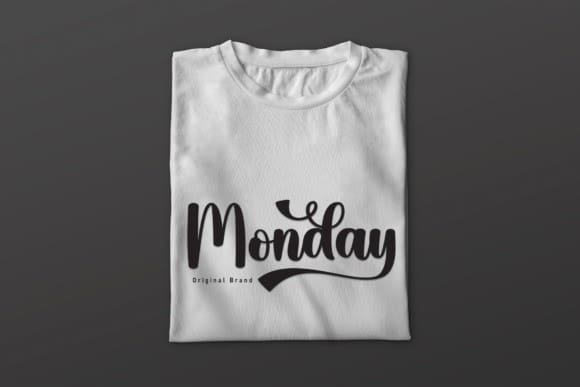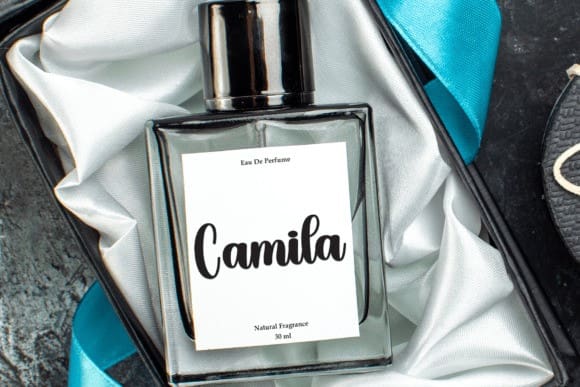
Chuckydoll Script Font
Chuckydoll Script Font is a lovely and timeless handwritten font. It is the best choice for creating eye catching logos, branding and quotes. Every letter has a unique and beautiful touch, which will make your design come alive!